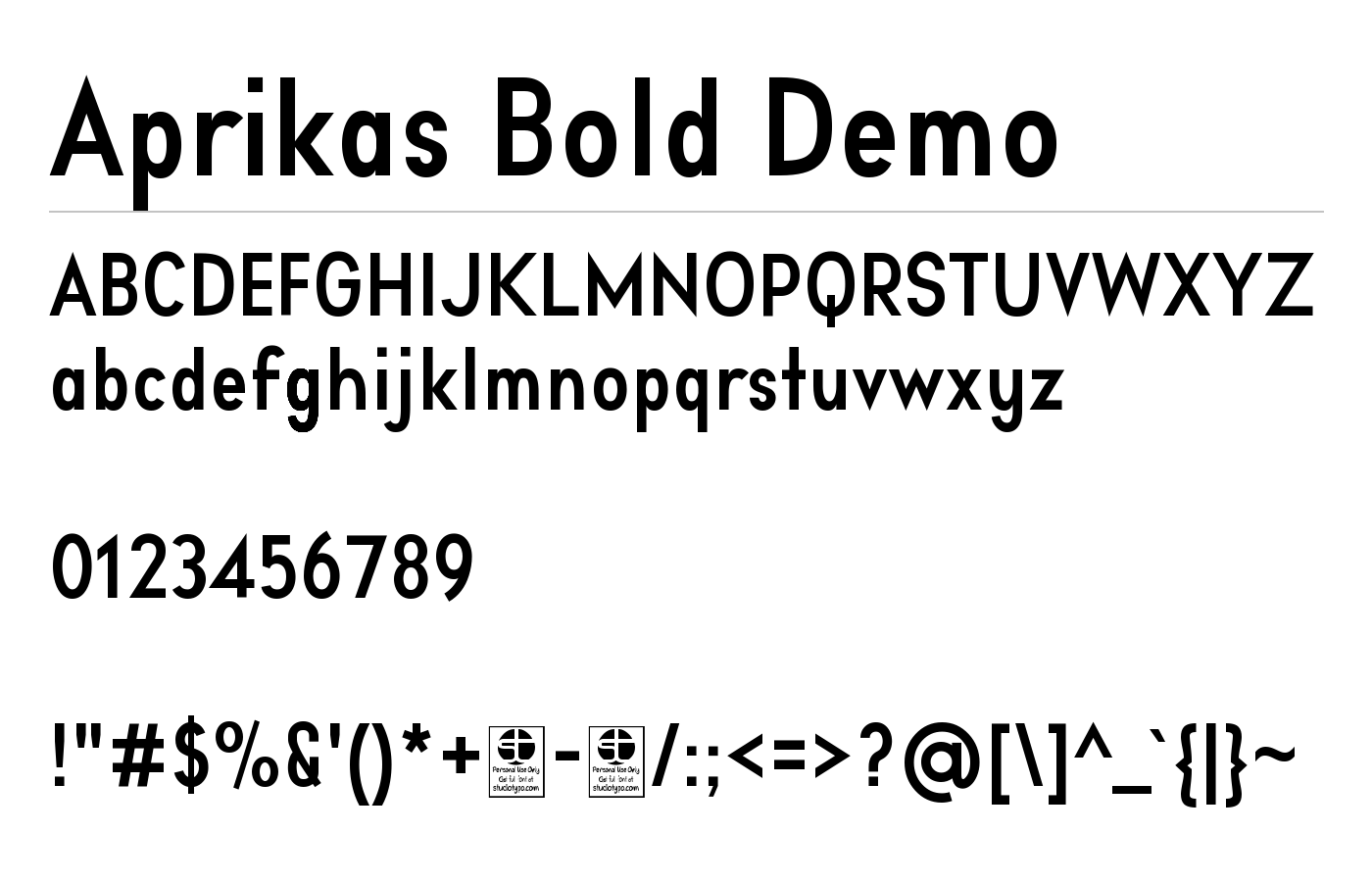
Aprikas Regular Demo is a clean and modern sans serif font with a slightly condensed width and medium weight, offering excellent readability. Its straightforward, geometric letterforms and subtle contrast convey a professional yet approachable personality, making it ideal for branding, editorial headlines, and digital content. This font works well where clarity and a contemporary feel are key, such as websites, packaging, and advertising.
Aprikas Regular Demo Font
About Aprikas Regular Demo Font
| Font family | Aprikas Regular Demo Font |
| Designer | MEHMET ABACI |